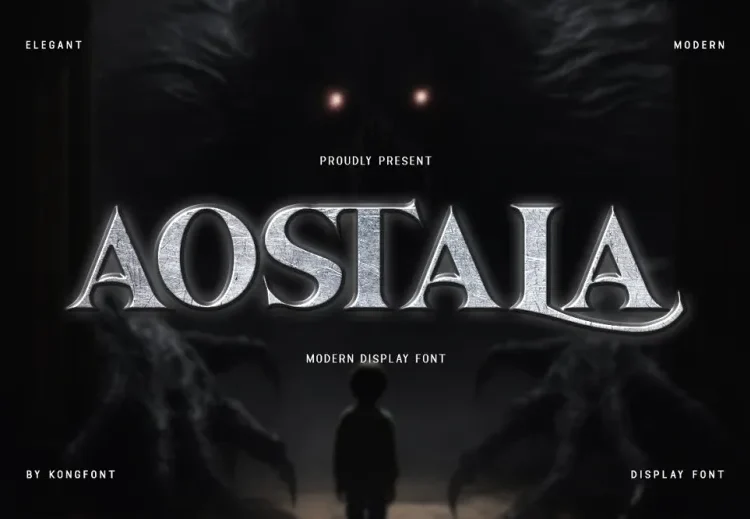
Aostala Font
Aostala is a fresh and clean serif font created by Kong Font, known for its distinct balance between simplicity and edge. With its soft serifs and straightforward design, Aostala stands out among other serif fonts, offering a unique combination of plainness and subtle aggressiveness. This makes Aostala an excellent choice for branding beauty products, where a clean yet impactful look is essential.
Aostala Font is versatile and can be applied to various design projects, including product packaging, posters, advertisements, and magazines. Its readability and clarity make it suitable for both digital and print use, ensuring that your designs remain crisp and professional at any size.